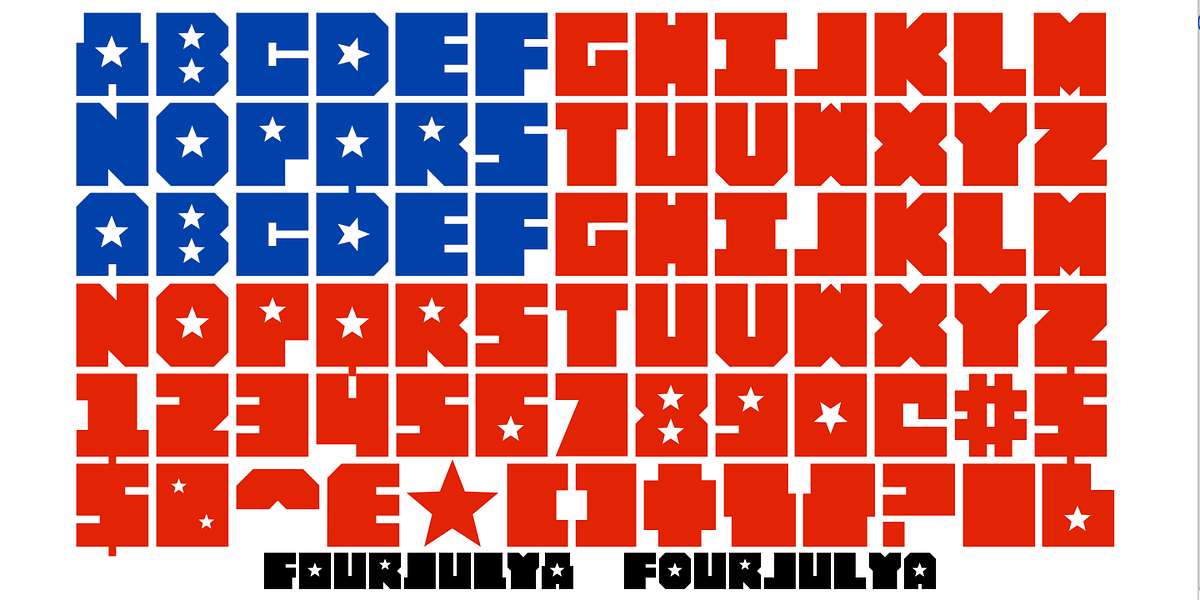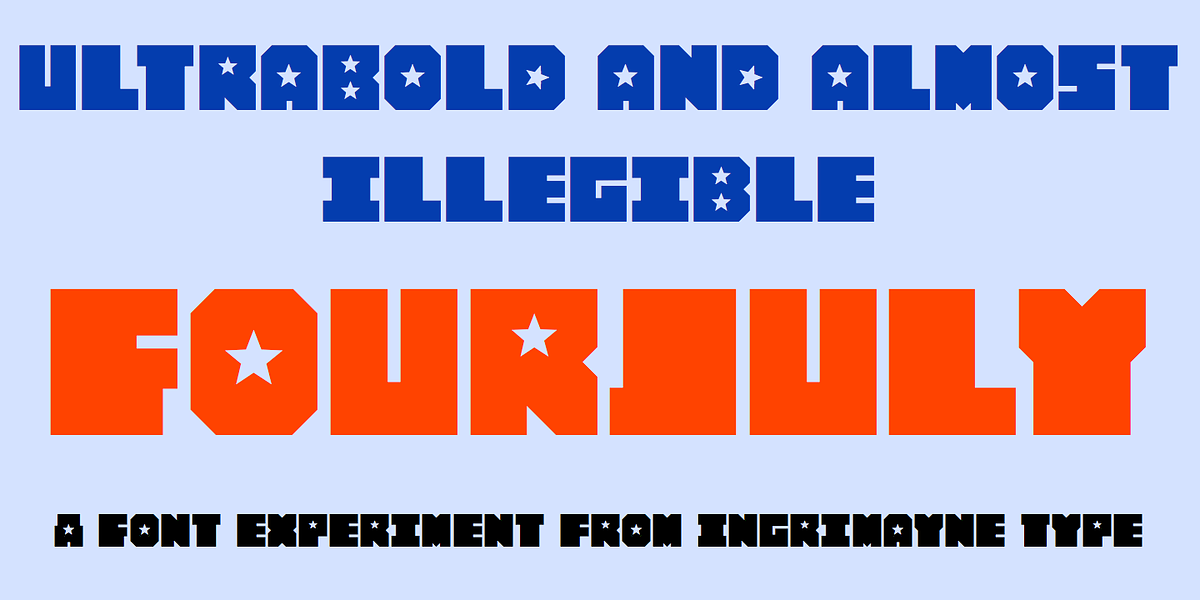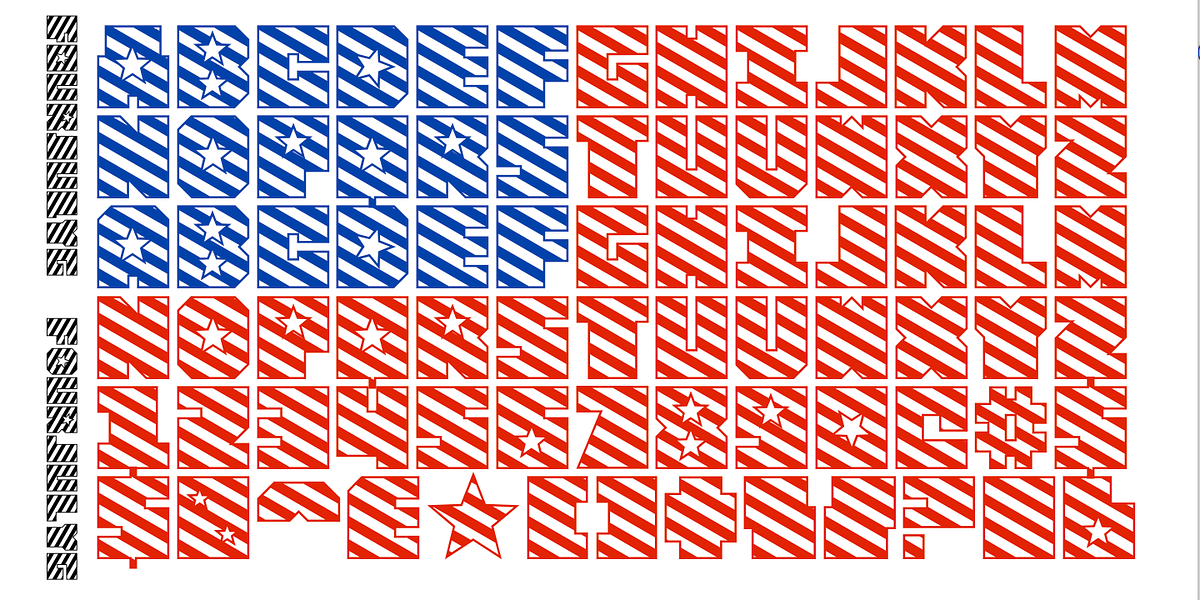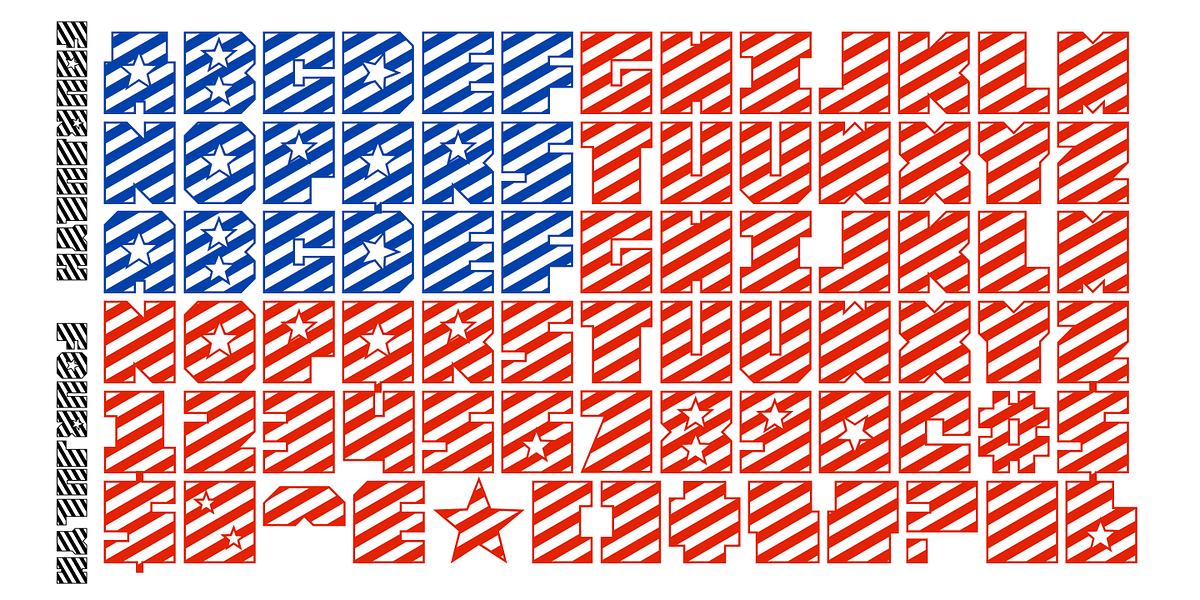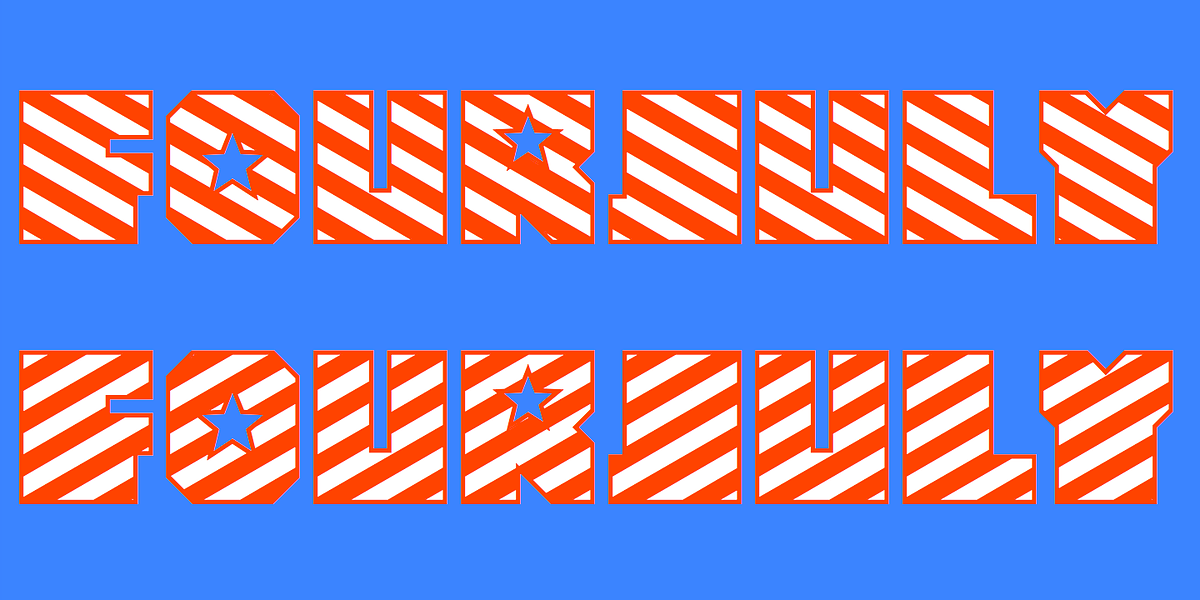
Four July
The FourJuly font family is a collection of three display fonts designed for patriotic themes. FourJuly A features square, blocky letters with star-shaped interiors. FourJuly G and FourJuly H introduce diagonal stripes, which can be layered over FourJuly A to create visually striking bicolored lettering.